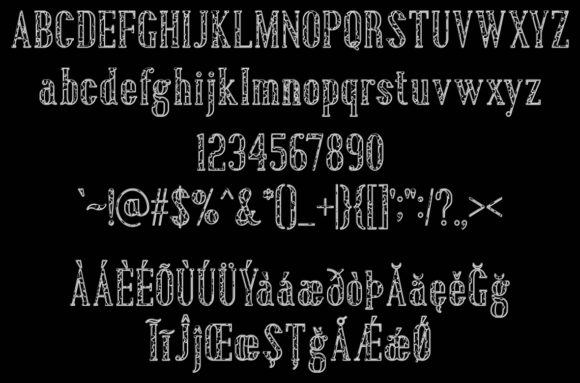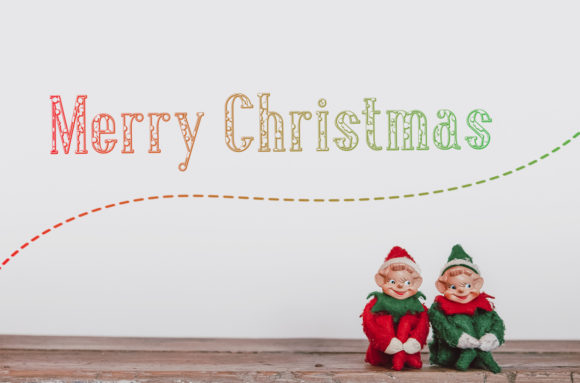
The Perfect Typography Touch: Bubble Texture Font
Have you ever been working on a design project and suddenly, a spark of creativity hits you? You envision a beautiful, modern aesthetic that captures the essence of your brand. For designers, this moment is all about finding the perfect typography to bring your vision to life.
That’s where the Bubble Texture Font comes in – a stunning decorative font that adds a touch of sophistication to any design. Its unique bubble-like texture creates a visually appealing contrast that elevates your content and leaves a lasting impression. Whether you’re working on a website, social media campaign, or print material, this font is sure to make a statement.
As a designer, you’ll appreciate the value of the Bubble Texture Font in adding a professional and modern feel to your work. Its versatility makes it a valuable addition to any design toolkit, and its beauty is sure to captivate your audience.
Bubble Texture Font Key Features
- Unique Texture Effect: This font features a unique bubble texture effect, giving it a distinctive and visually appealing look that can add a creative touch to various designs.
- Character Set: The font includes a comprehensive character set, including uppercase and lowercase letters, numbers, punctuation marks, and special characters, making it suitable for a wide range of applications.
Bubble Texture Font Review
I’ve had the chance to work with the Bubble Texture Font, and here’s my honest review.
- The font’s unique texture adds a touch of playfulness to any design, making it perfect for children’s books, educational materials, or even social media graphics.
- The font is highly customizable, allowing designers to adjust the texture and color to fit their specific project needs.
- The Bubble Texture Font is highly legible, even at smaller font sizes, making it a great choice for body text or headlines.
- The font may not be suitable for formal or professional projects, as its playful texture may come across as unprofessional.
- The font’s texture can be overwhelming if used excessively, so it’s essential to use it sparingly to avoid visual clutter.
The Bubble Texture Font is a fun and creative option for designers looking to add some personality to their projects. While it may have some limitations, its unique texture and high customizability make it a great choice for the right projects.
Use the bubble texture font to create eye-catching headings and titles. Experiment with different font sizes, colors, and effects to create a unique visual style. You can also use the font in combination with other design elements, such as shapes and graphics, to create a cohesive design.
The bubble texture font is perfect for:
- Creating playful and whimsical designs
- Adding visual interest to headings and titles
- Designing for social media and online platforms
- Creating custom invitations and party decorations